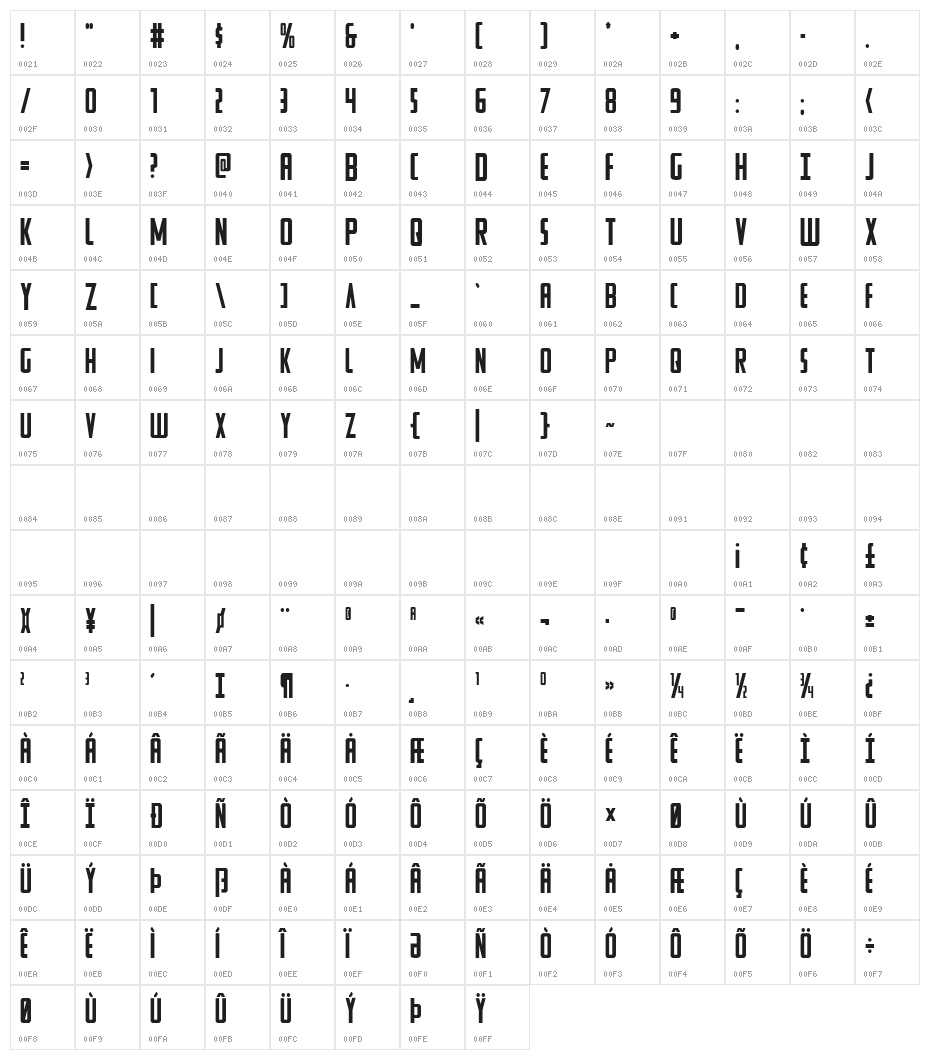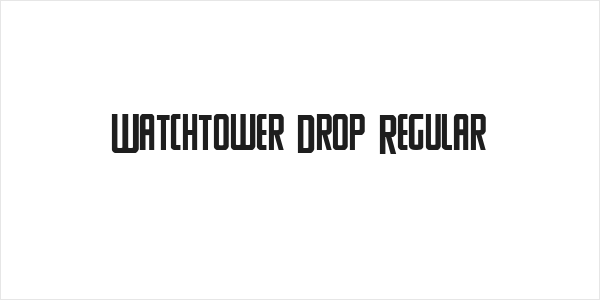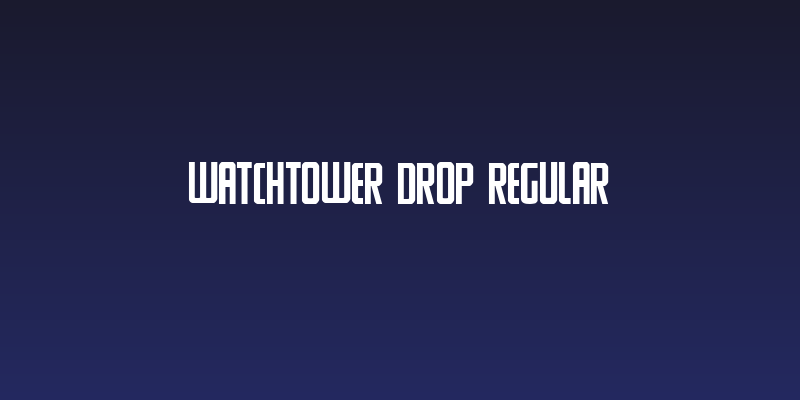
Watchtower Drop Regular Font
Watchtower Drop Regular Description
This font features a bold and geometric design with strong, angular lines and a modern aesthetic. The uppercase and lowercase letters maintain a consistent height, giving it a uniform appearance. The numerals and special characters are designed to match the boldness of the alphabet, ensuring a cohesive look across all characters. The overall style is striking and impactful, making it suitable for attention-grabbing designs.
| Proposed Projects | Ideal for posters, headlines, logos, and branding materials that require a bold and modern look. |